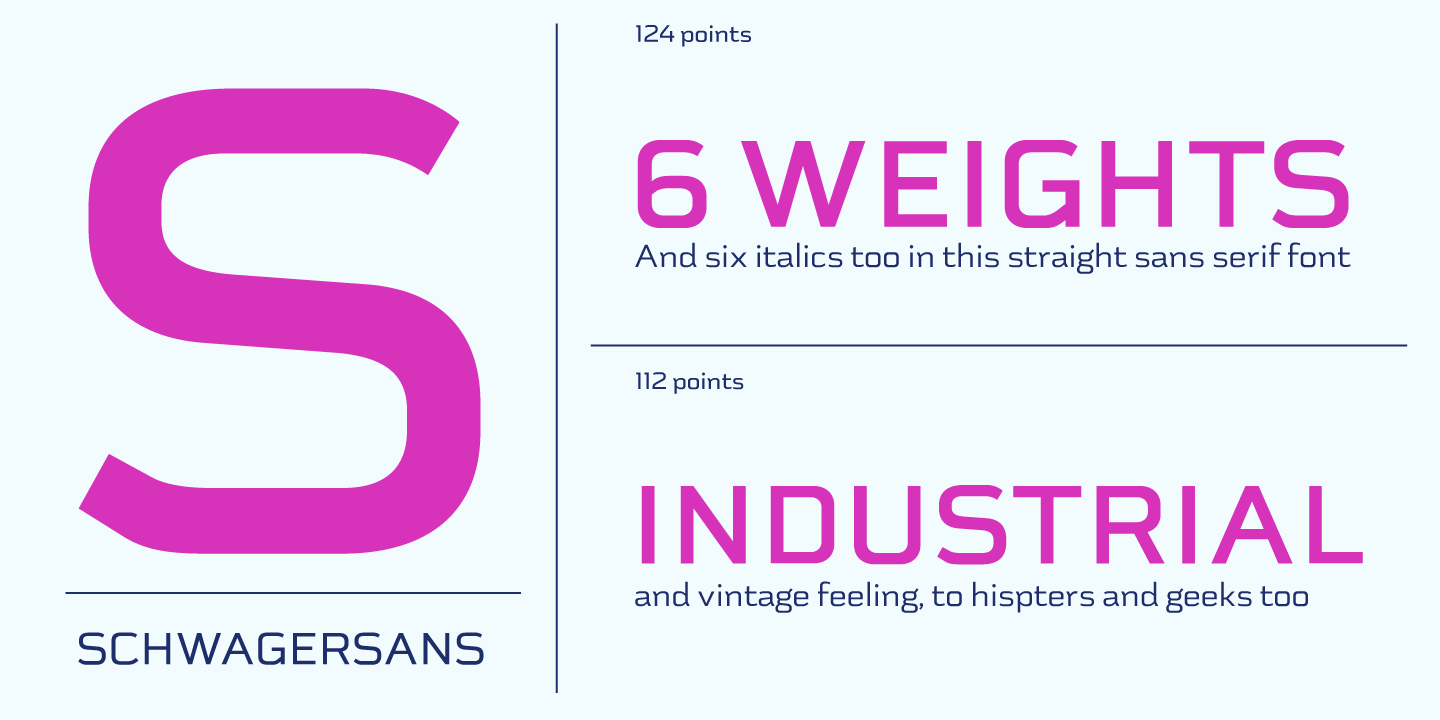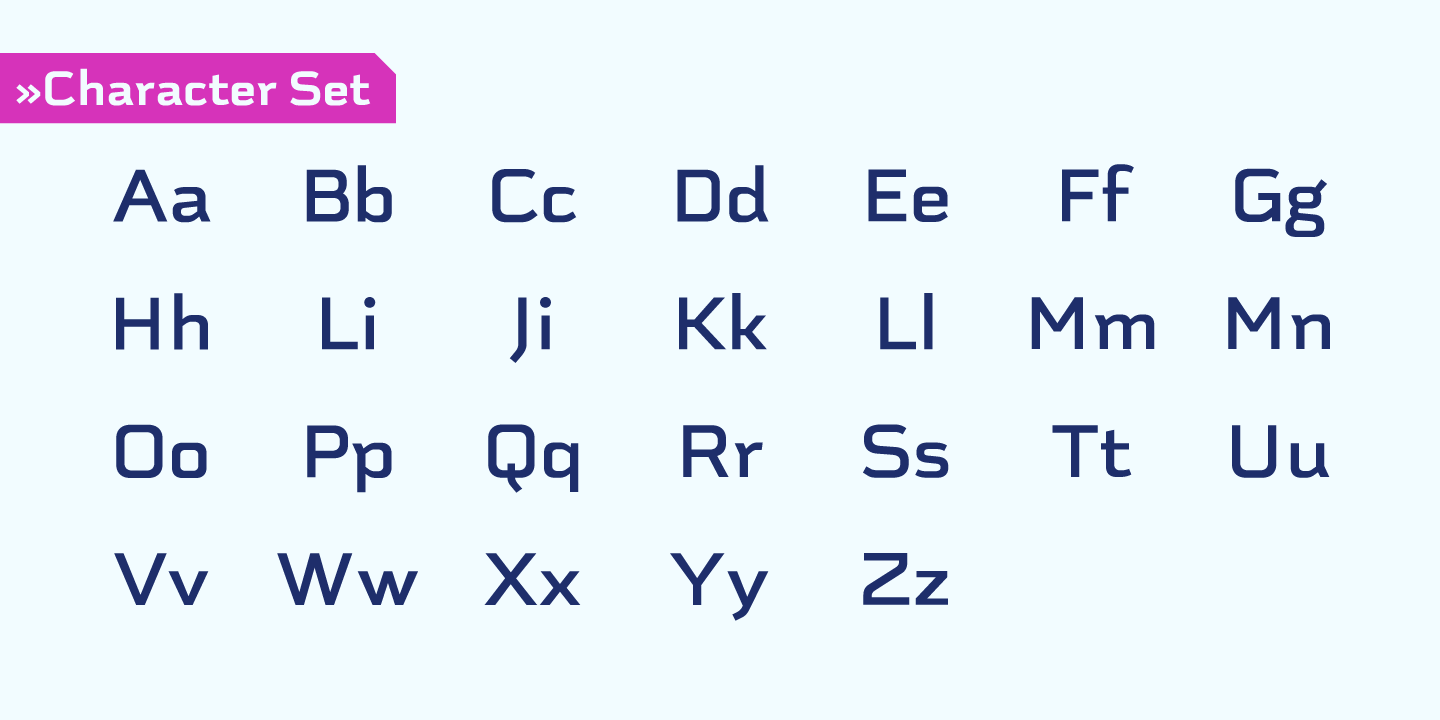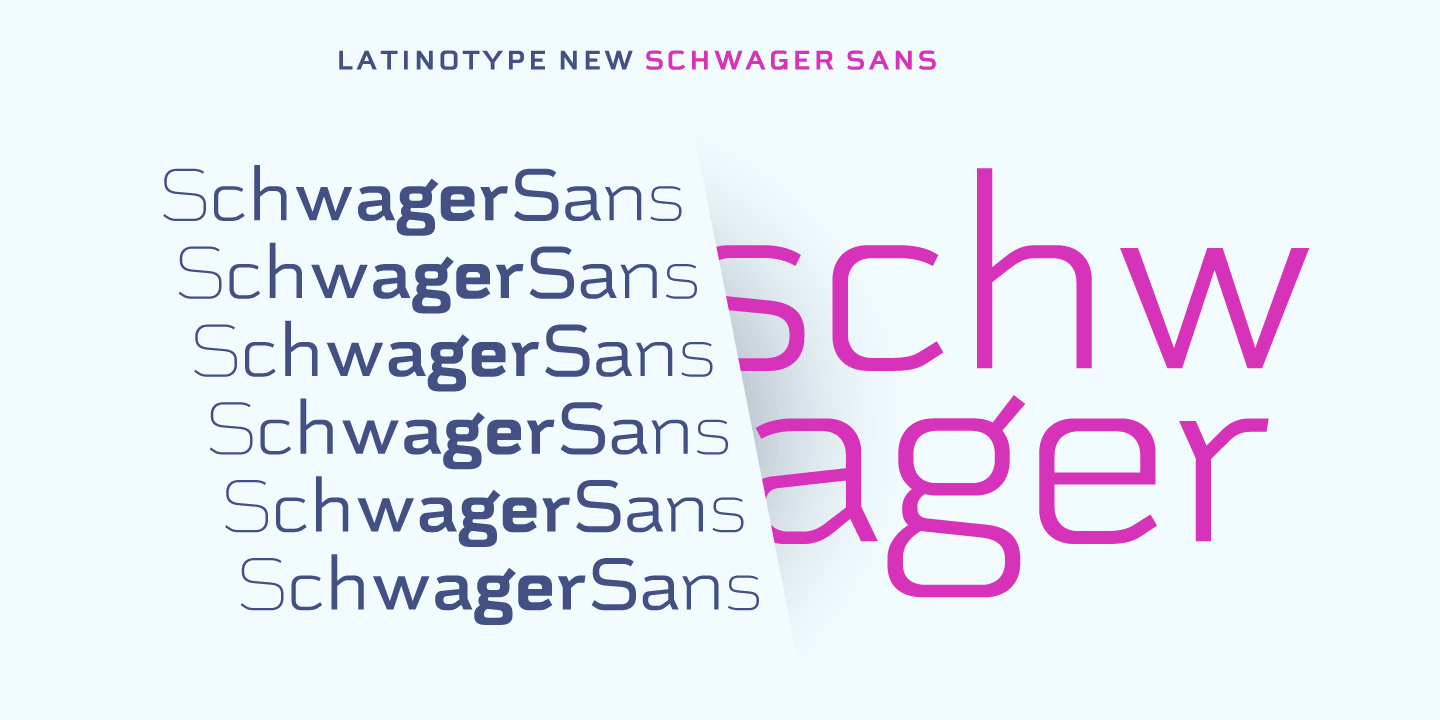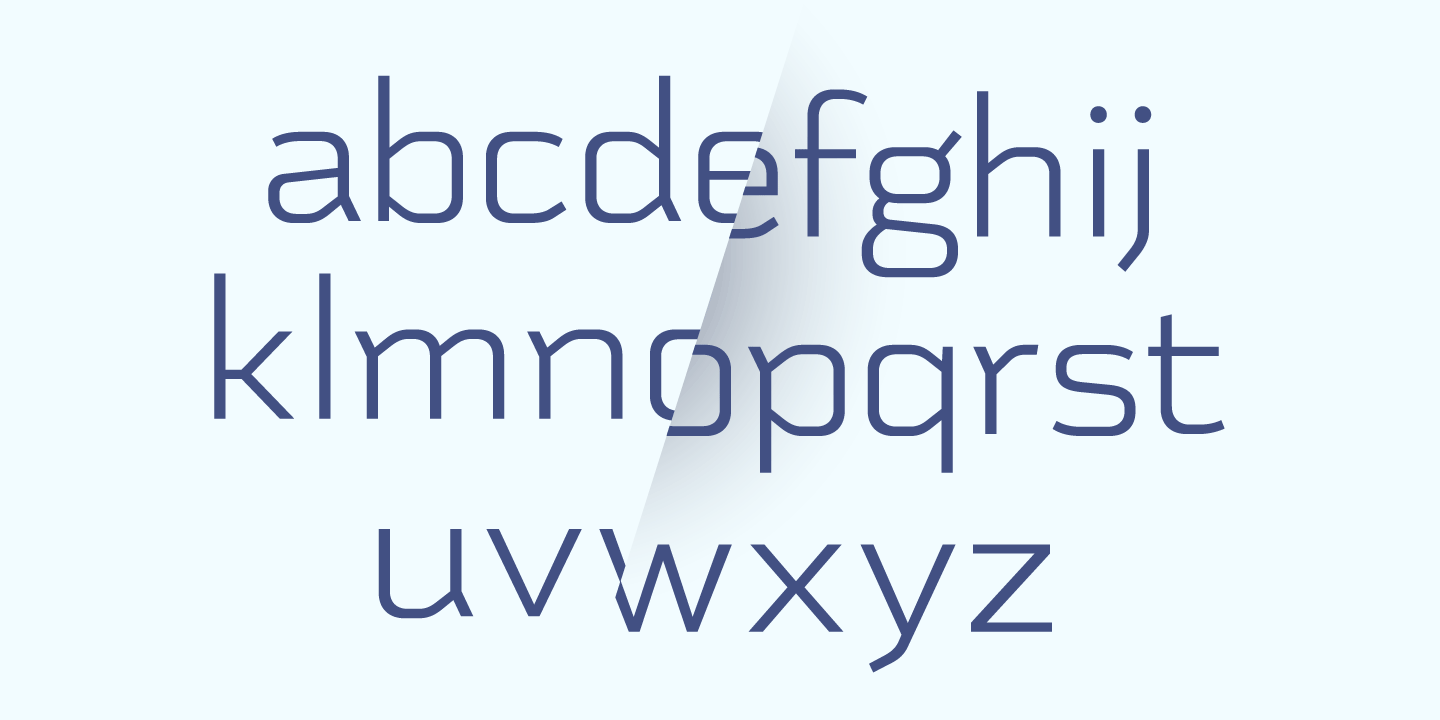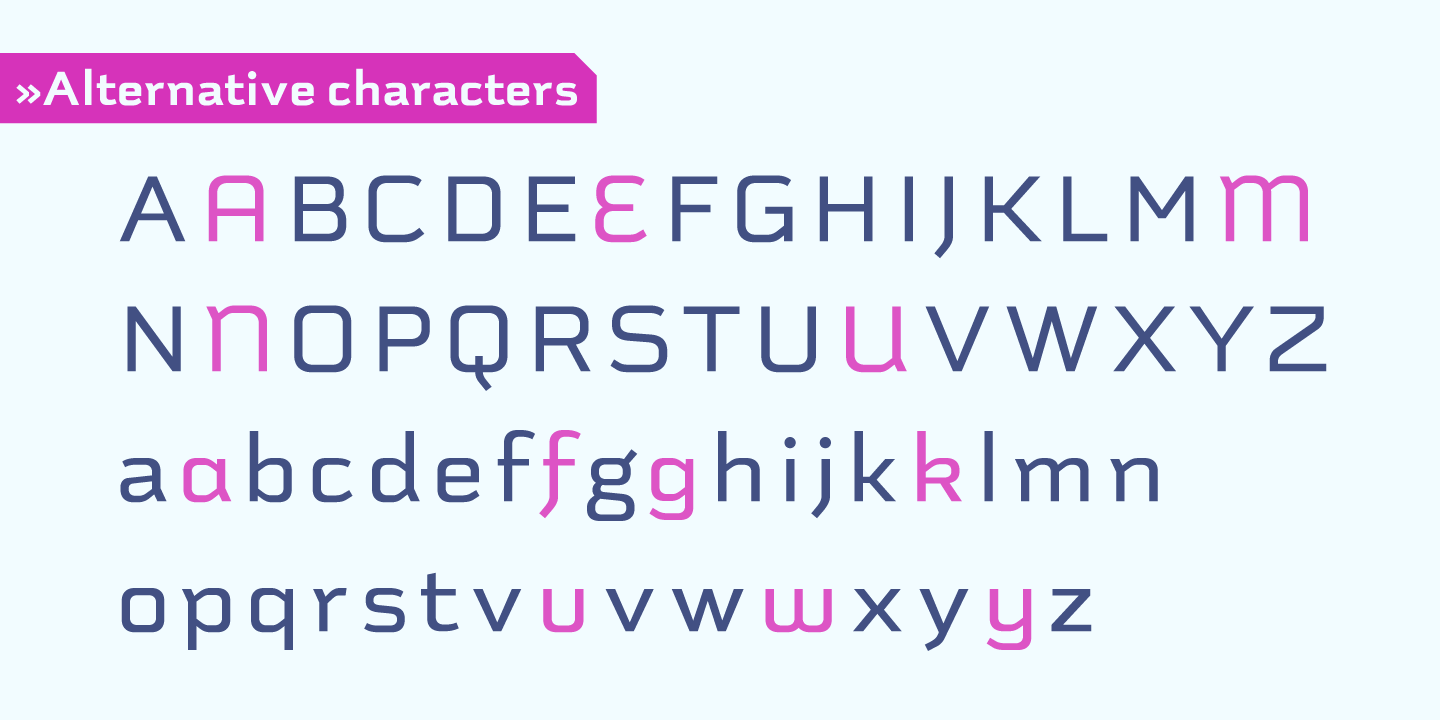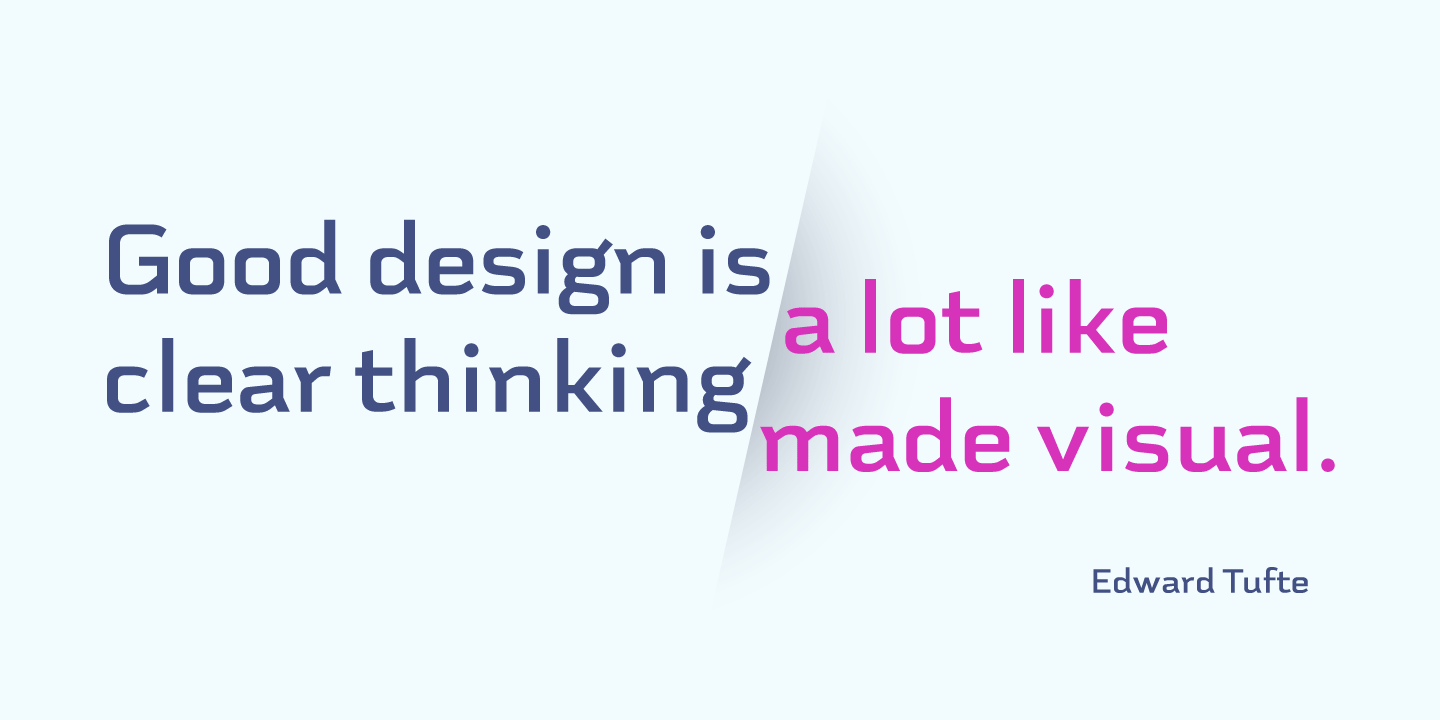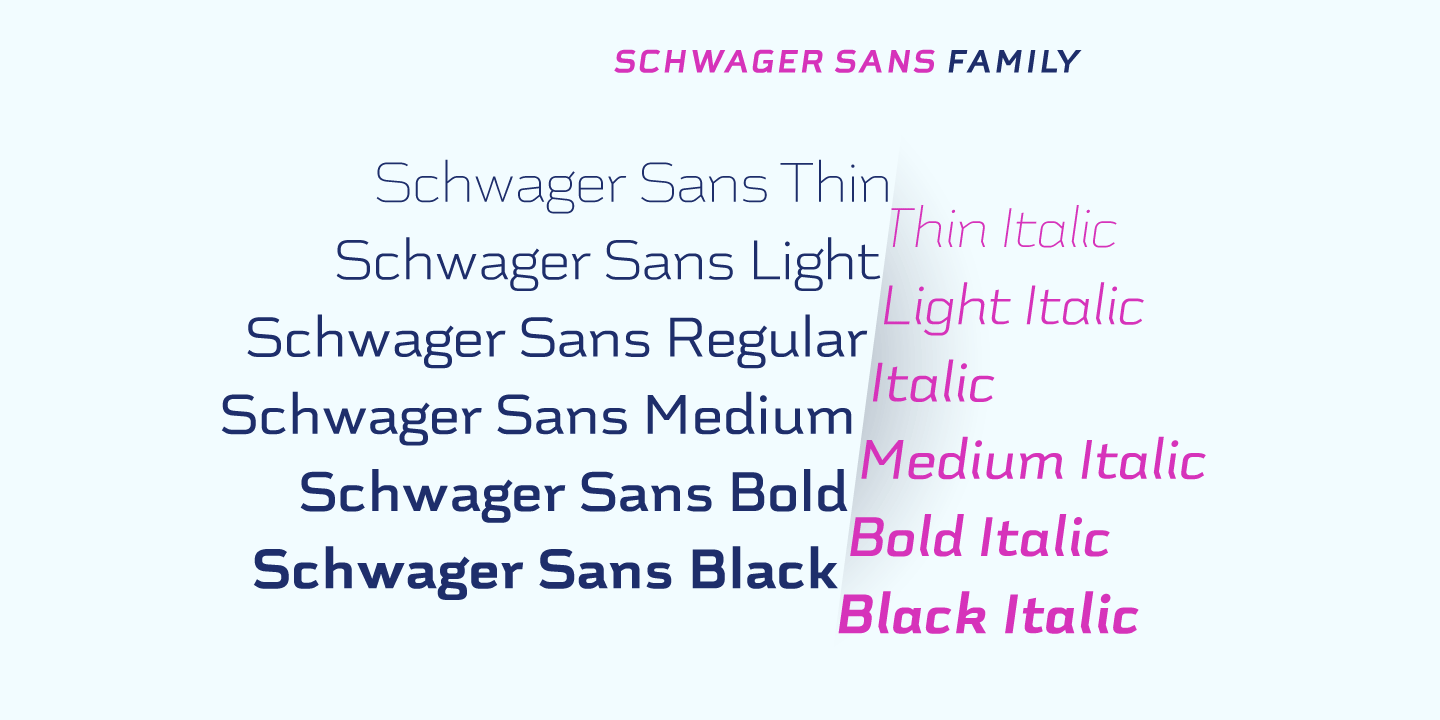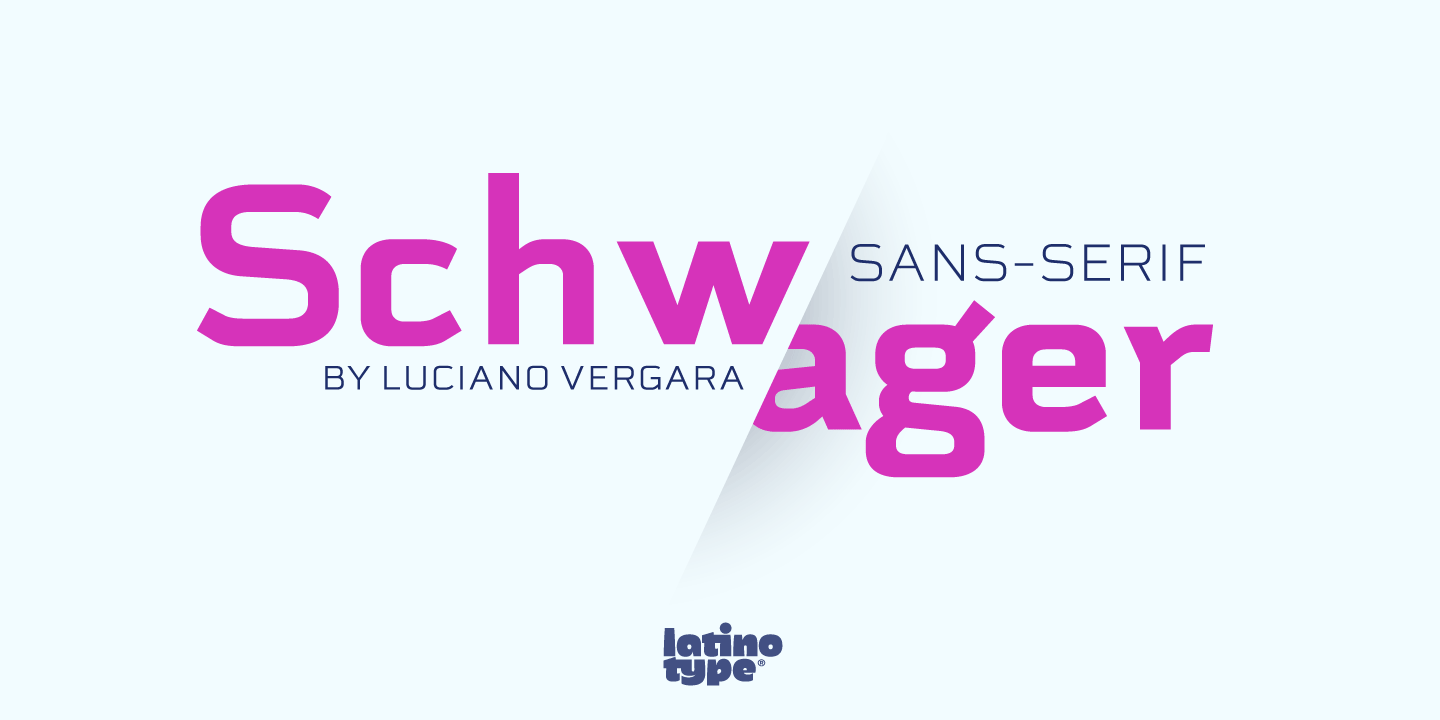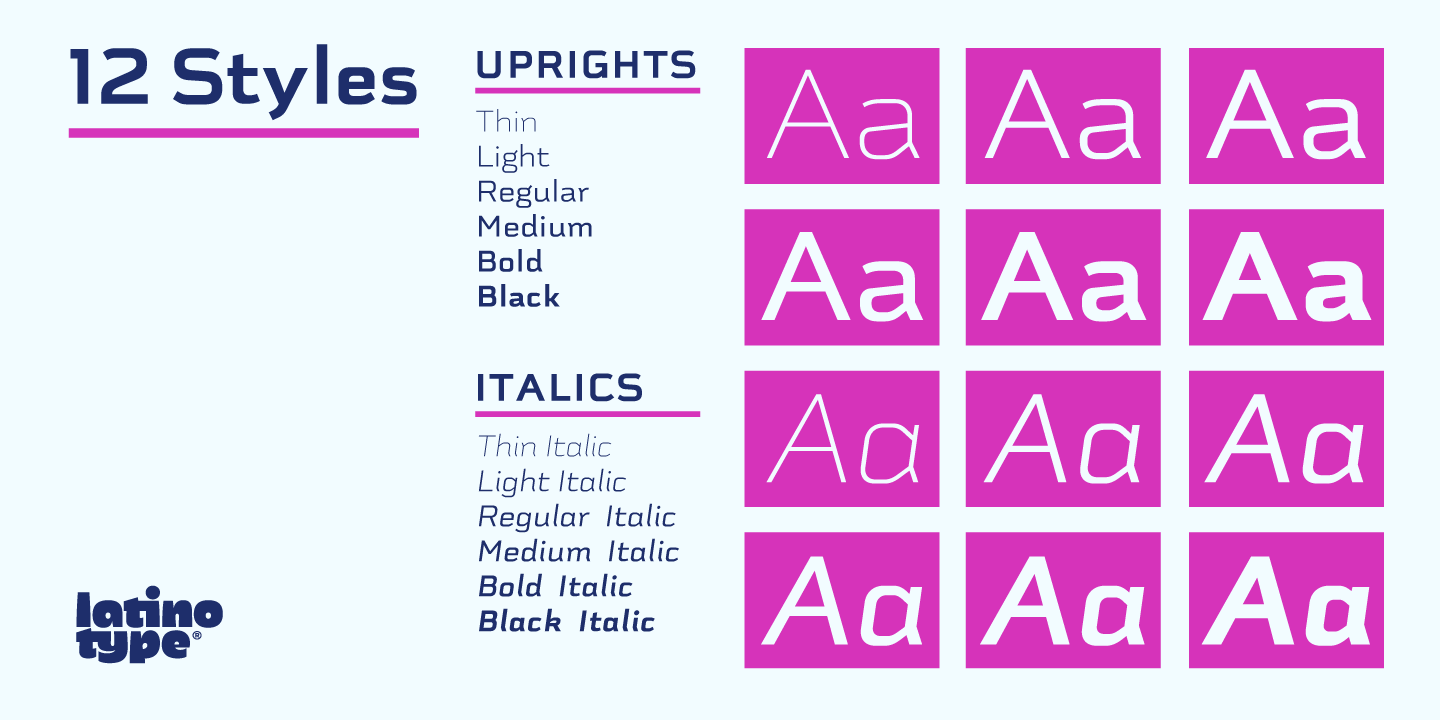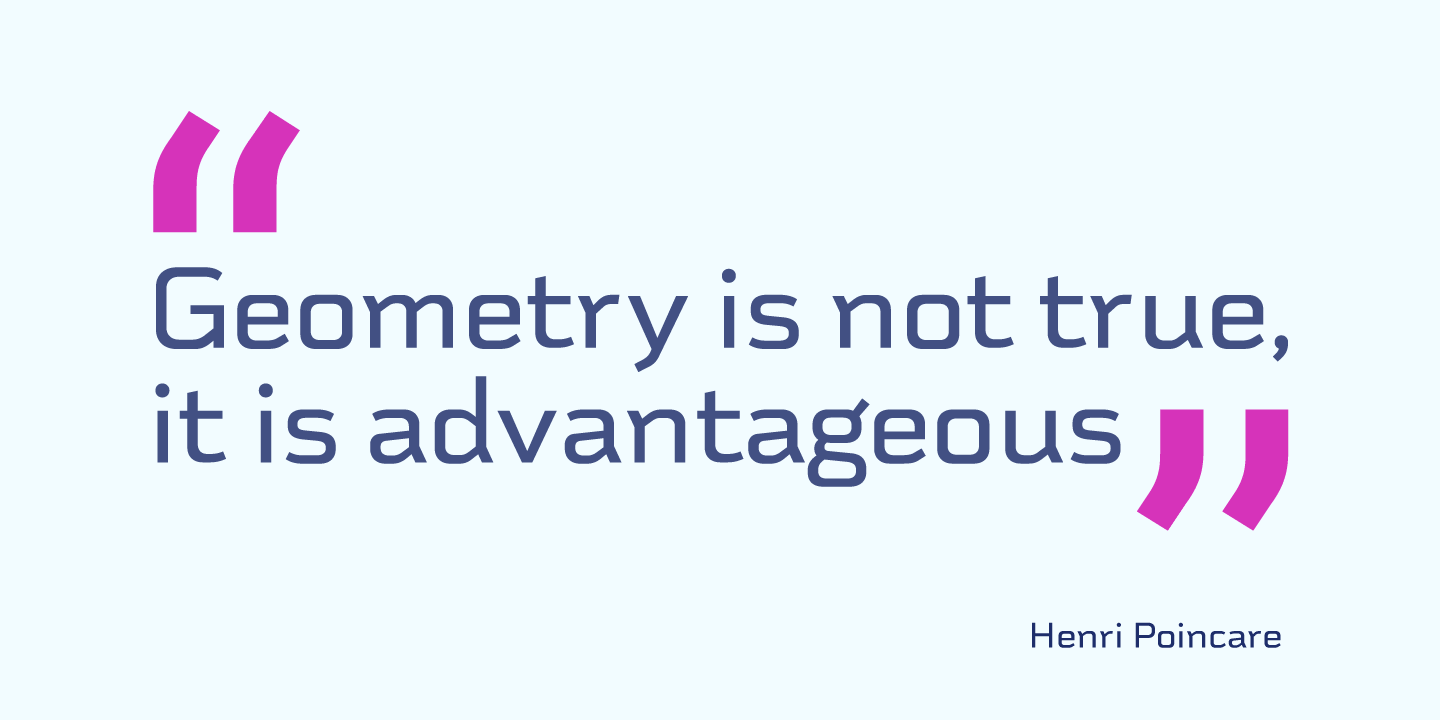
Schwager Sans is the new version of Latinotype Schwager. This time with a fresher taste, retaining the same principles of structure, geometry and modernist aesthetics in a contemporary reinterpretation. Designed especially for use in titles, reveals concepts associated with masculinity, technology or sports, perfect for application in cover design, logos, web.
Ligatures, Alternates, Contextual Alternates